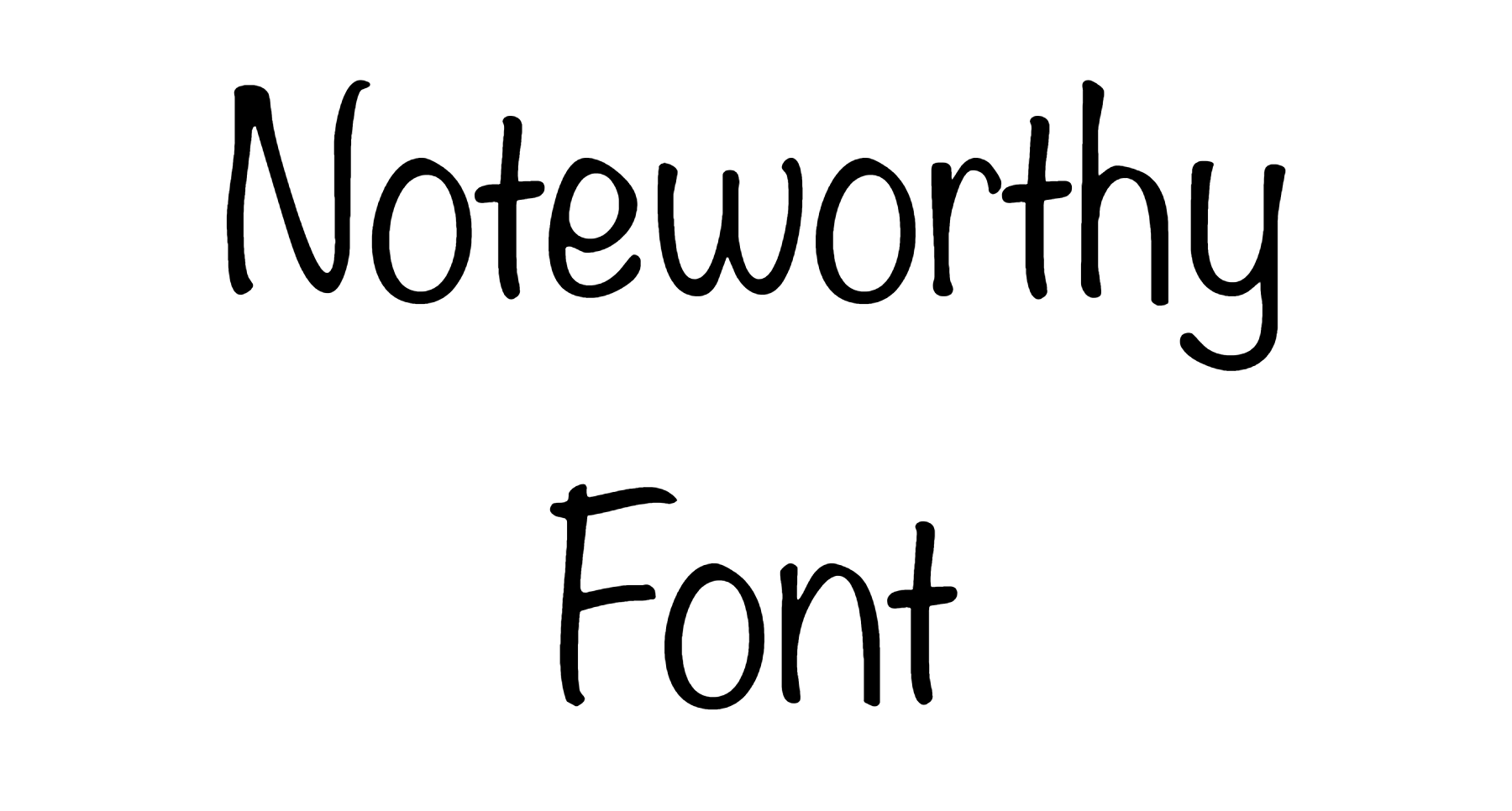
Noteworthy
Noteworthy is a handwritten font. It has a casual, written-with-a-pen look that makes designs feel personal. You can download it for free and test it with your own words in the preview above.
What You Can Type With Noteworthy
With complete upper and lowercase letters and all ten digits, Noteworthy is ready for real wording, not just a single headline. Common punctuation such as &, !, ? and @ is included as well. It also has the accented letters you need for Spanish, French, German, Portuguese and Italian. On top of that, it includes Greek, Cyrillic and Arabic characters.
Where Noteworthy Works Best
Designers usually reach for fonts like Noteworthy when they're making greeting cards, journal pages and friendly social posts. Its thin strokes look elegant large but can fade at small sizes or on busy backgrounds, so give it room and contrast. Set it a bit larger than you would a normal text font. Handwriting styles lose their charm once they get too small to read comfortably.
Does Noteworthy support accented letters?
Yes. Noteworthy includes the accented letters needed for Spanish, French, German, Portuguese and Italian, so it works for more than just English.